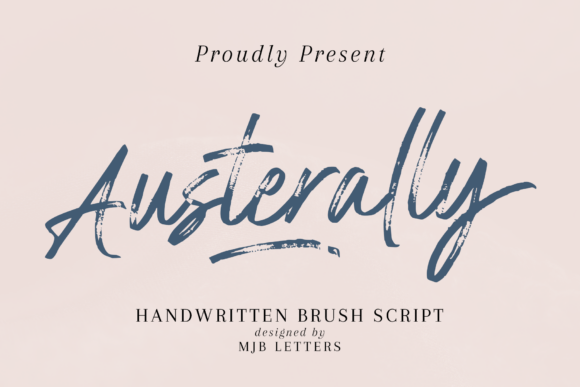
The Austerally Font: A Game-Changer for Creative Projects
Have you ever been in the middle of a design project, pouring your heart and soul into it, only to hit a roadblock when trying to find the perfect font? I certainly have. It was during one of those moments, working on a client’s branding project, that I stumbled upon the Austerally font. It was like a breath of fresh air – modern, casual, and authentic, with a unique personality that instantly elevated my design.
First Impressions: A Personal Review
As a designer, I’m always on the lookout for fonts that can bring a touch of elegance and uniqueness to my projects. The Austerally font did just that, and I was excited to dive deeper into its features. Here’s my honest review:
• ✨ Smooth strokes and natural flow that give it a handmade feel
• ✅ Clean and professional look that’s perfect for a wide range of projects
• 💫 Unique personality that adds a touch of elegance to any design
• 🎨 Highly versatile and adaptable to different contexts and styles
While the Austerally font is an excellent choice for many projects, there are a few things to keep in mind:
• ⚠️ Some of the more intricate glyphs might not display correctly at smaller font sizes
• 🤔 Limited availability of certain OpenType features in certain software
One of the standout features of the Austerally font is its range of OpenType features and glyphs. These allow you to customize your text and add more personality to your designs. Some of the features you can expect to find include:
Feature Description
Stylistic Alternates Alternate glyphs for letters and numbers that offer a more decorative look
Glyphs Additional characters and symbols that can be used to add more interest to your text
Ligatures Special character combinations that create a more fluid, connected look
The Story Behind Austerally
The Austerally font was designed with the goal of creating a modern, authentic script font that captures the essence of handwritten artistry. The designer, inspired by the beauty of natural handwriting, set out to create a font that would bring a touch of elegance and uniqueness to any project. Through careful attention to detail and a passion for typography, the Austerally font was born.
Q: What is the Austerally font best suited for?
A: The Austerally font is perfect for a wide range of projects, including branding, packaging, signage, and digital designs.
Q: Is the Austerally font available in different weights or styles?
A: Currently, the Austerally font is available in a single weight, but the designer may release additional weights or styles in the future.